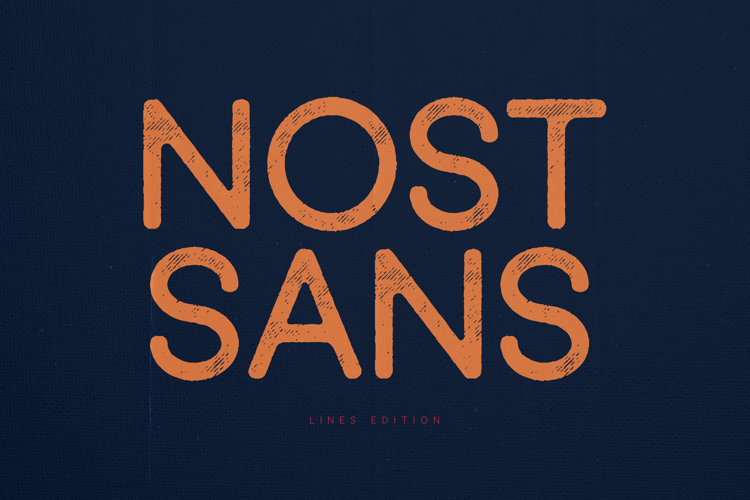
Nost Sans Lines Hand Drawn Sans Serif Font
Nost Sans Lines is a modern hand-drawn sans serif typeface that combines clean geometric structure with expressive sketch-style detailing. The subtle line texture inside each character adds personality and warmth while keeping the font highly readable and versatile.
Designed for contemporary design projects, Nost Sans Lines brings a handcrafted aesthetic to modern typography. Its balanced proportions and soft rounded shapes make it ideal for creative branding, posters, packaging, and editorial layouts.
The line-textured style gives the typeface a natural, human touch while maintaining the clarity expected from a modern sans serif. This makes it perfect for designers who want a clean font with a bit more character and visual interest.
Nost Sans Lines brings together minimal design and handcrafted texture to create a distinctive yet versatile sans serif typeface.